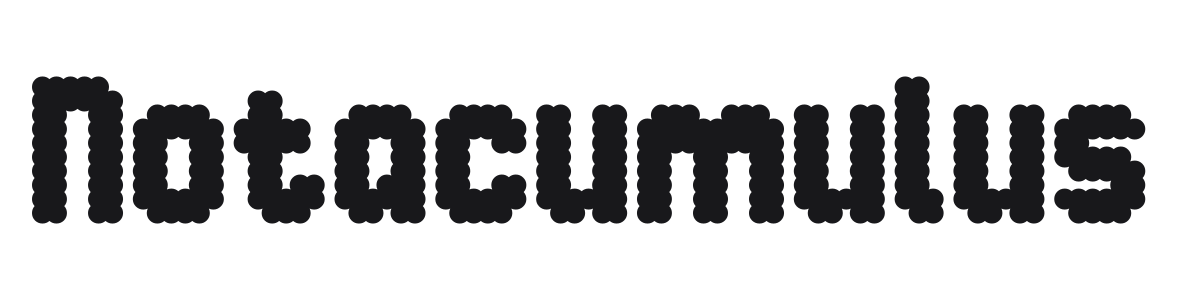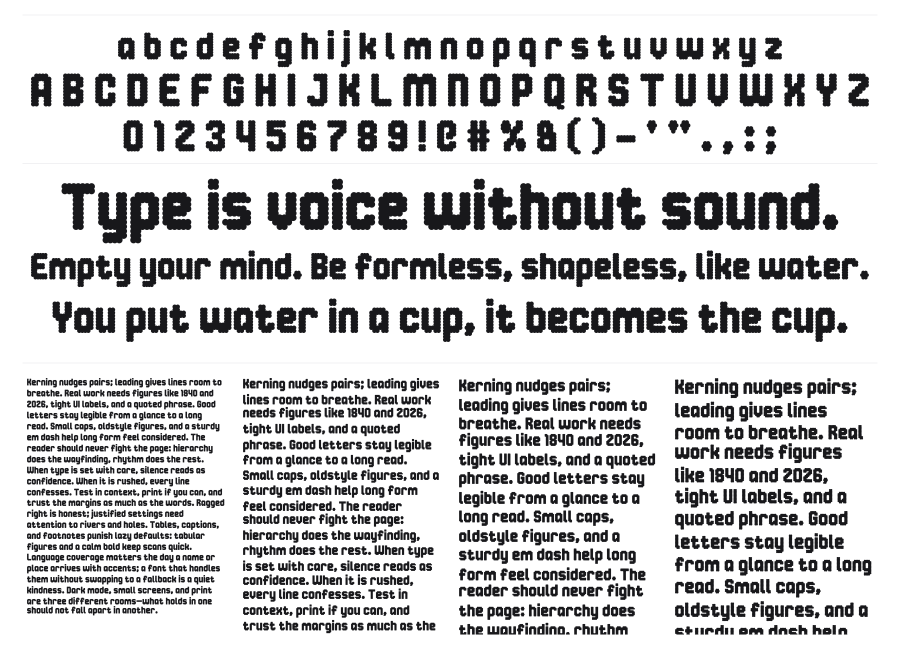
Notacumulus
Notacumulus is a bold dot-matrix display font built from a grid of small circular dots, producing a chunky, cloud-like texture across every character. The circular modules soften what would otherwise be hard pixel edges, landing somewhere between classic arcade lettering and bubble typography. It reads best large, where the dotted construction becomes a visual feature rather than a limitation.